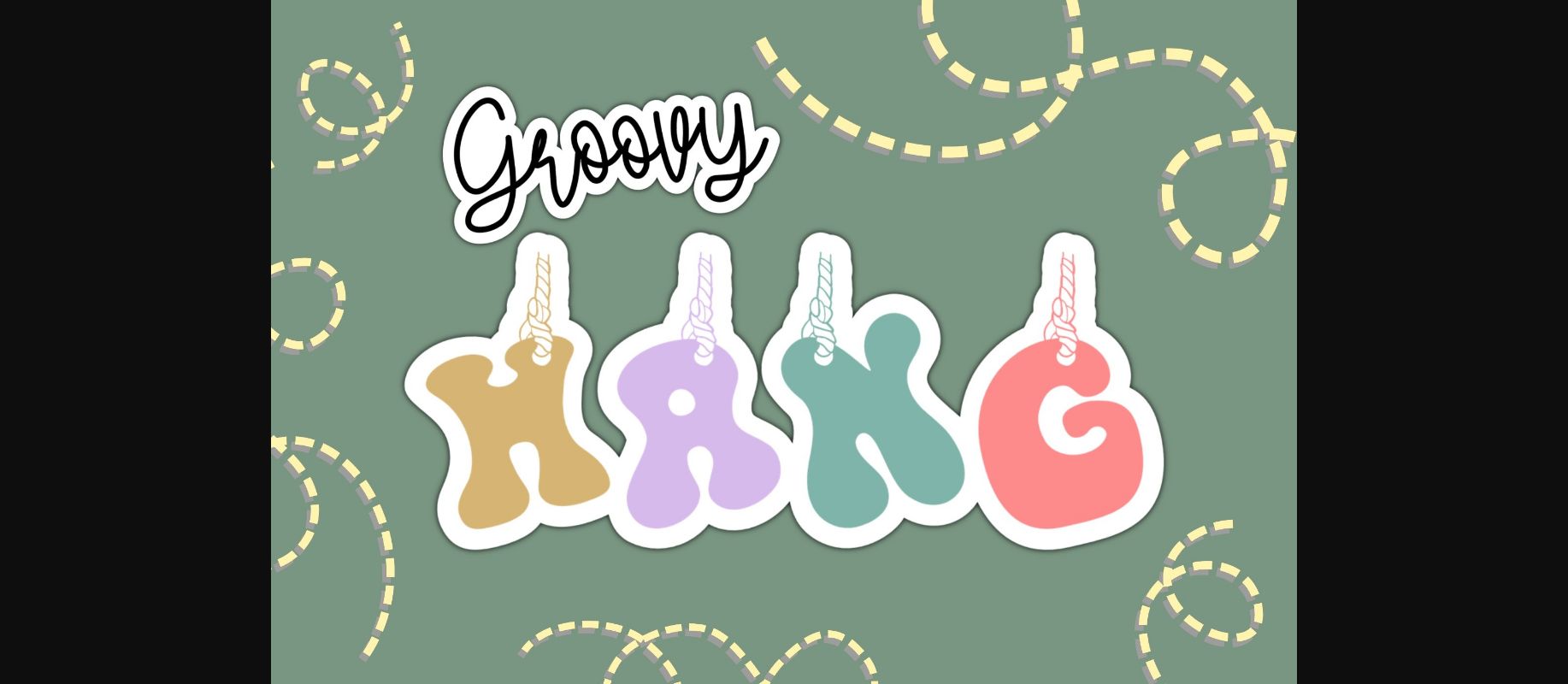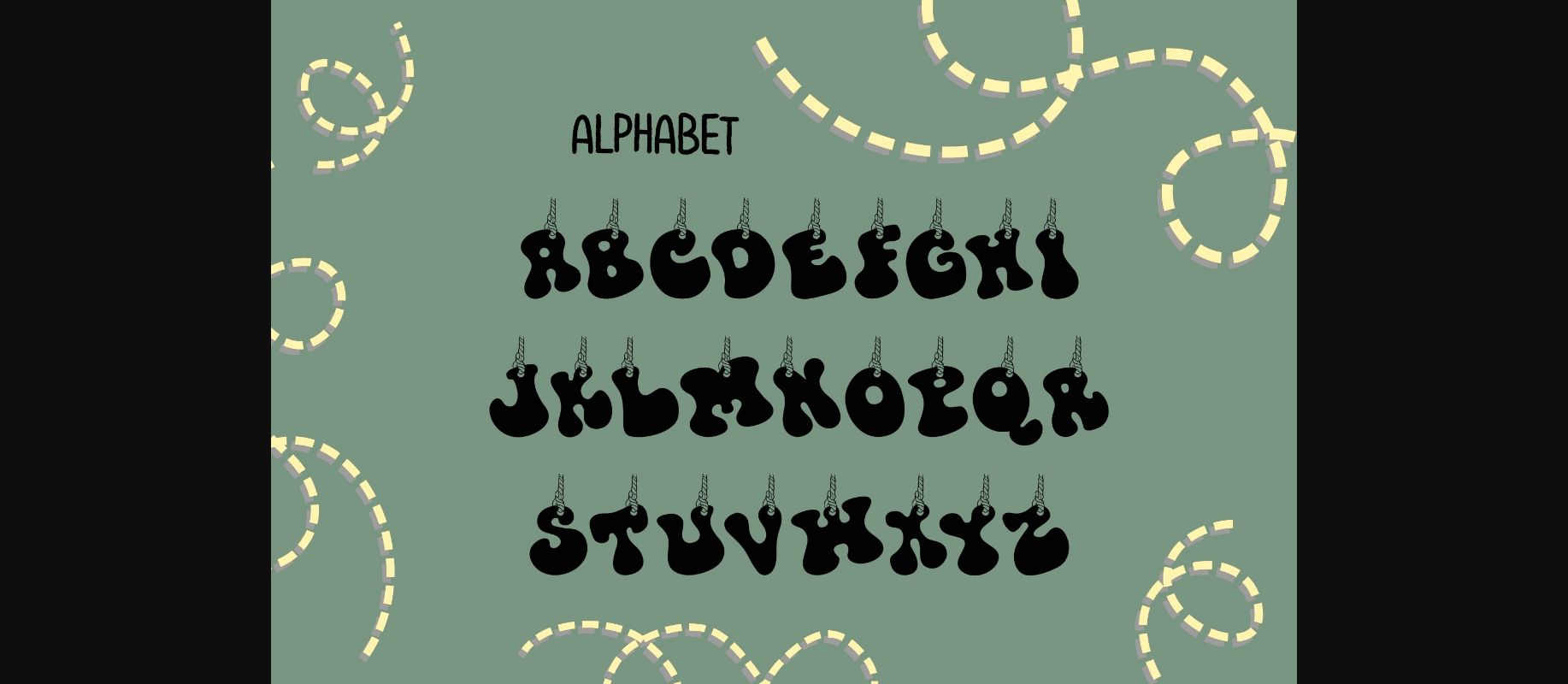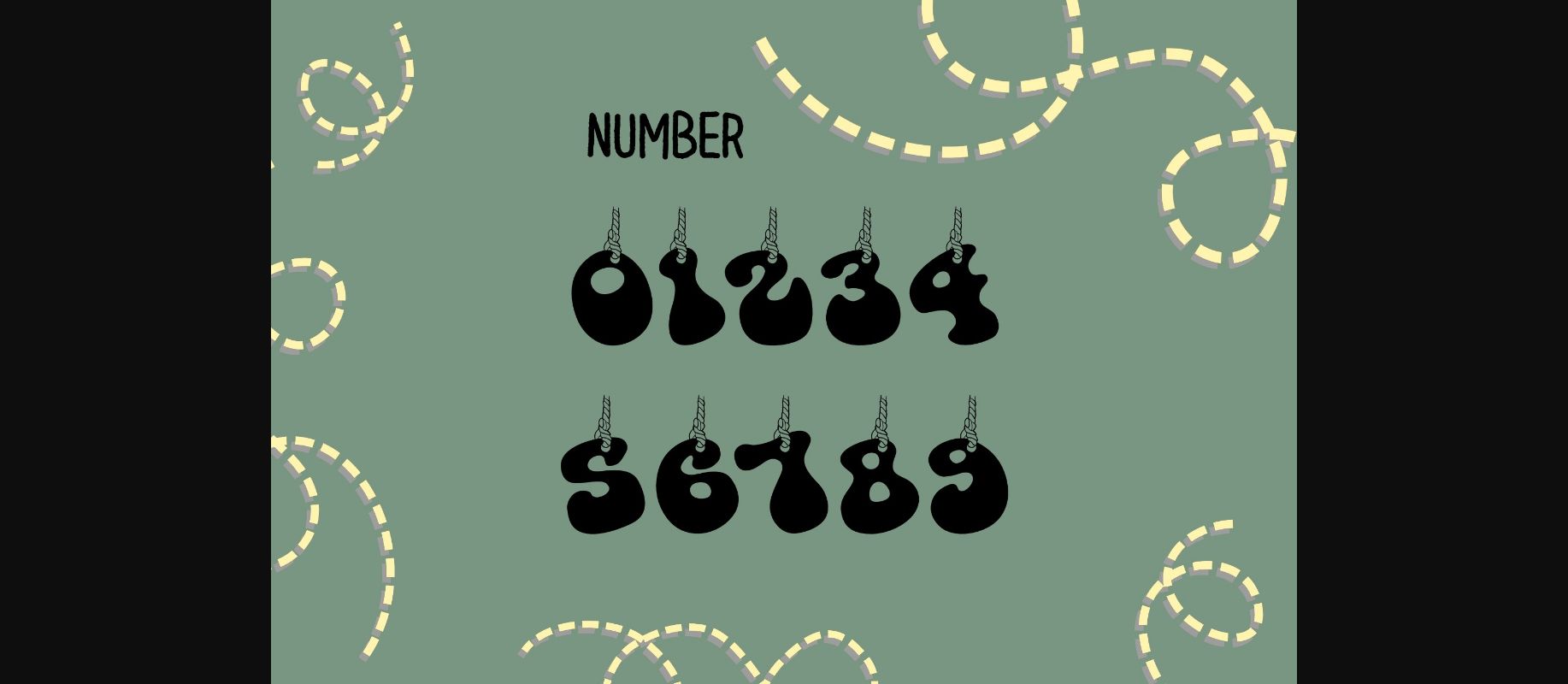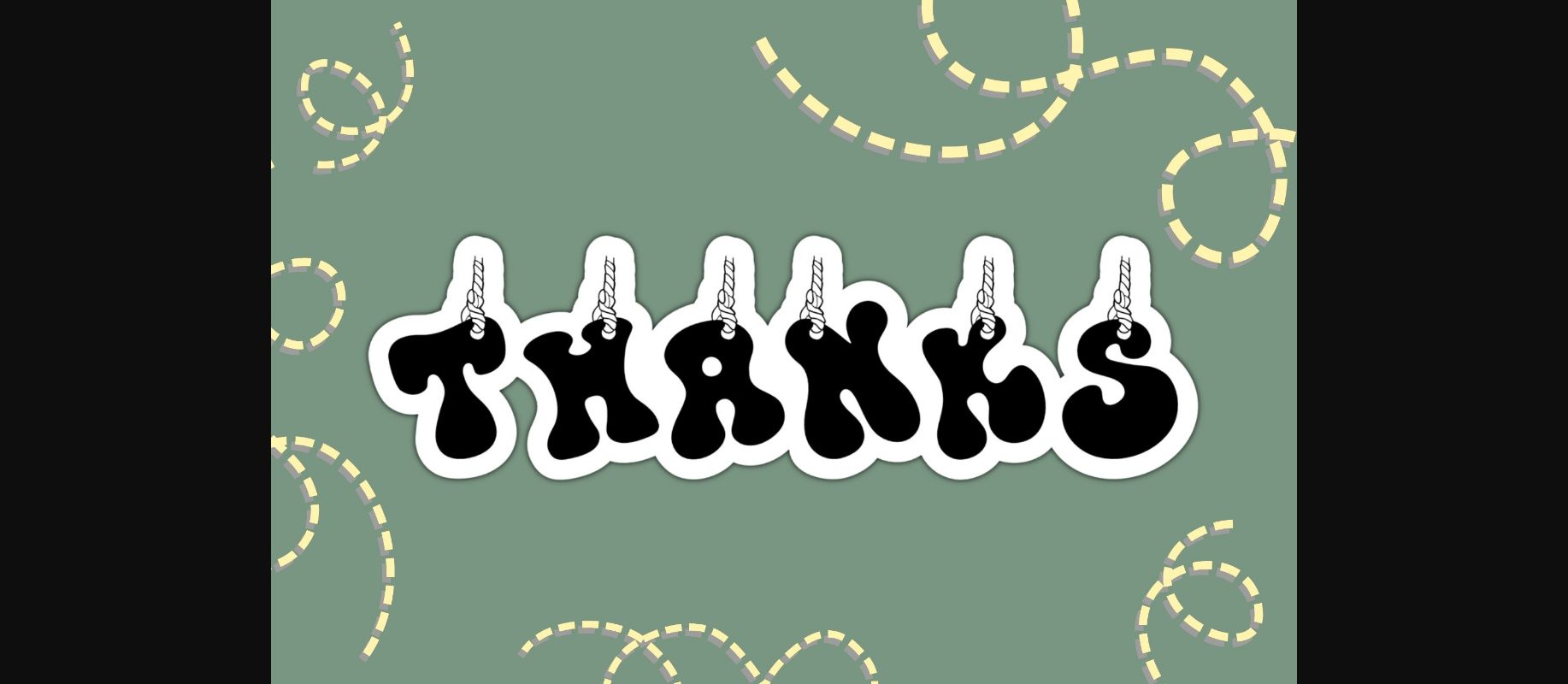
HomeDecorative FontsGroovy Hang Font Decorative Fonts Groovy Hang Font FacebookXPinterestWhatsApp 1 of 6 ... Groovy Hang Font Poster 2... Groovy Hang Font Poster 3... Groovy Hang Font Poster 4... Groovy Hang Font Poster 5... Groovy Hang Font Poster 6... About Groovy Hang Font Groovy Hang is a fun and quirky decorative font. Letters tied with rope hanging in the air look like a label making it the perfect fit for all of your logos, branding, social media, crafty DIY projects, and much more! DOWNLOAD NOW People also explored Dharling Font Little Flower Font Franqueline Slab Font Mitha Font Meow Cat Font Hysteria Witcher Font Best Santa Greetings Font Adellina Font Handmade Compact Font 476 0 TagsGroovy Hang Font Previous articleMaxwell Monogram FontNext articleDaisy Rainbow Font LEAVE A REPLY Cancel reply Comment: Please enter your comment! Name:* Please enter your name here Email:* You have entered an incorrect email address! Please enter your email address here Website: Save my name, email, and website in this browser for the next time I comment. Personal Use Free Lumber Personal Use Free Read more about this font Dealerplate California Personal Use Free Read more about this font Leadent Script Personal Use Free Read more about this font Quickline Personal Use Free Read more about this font BLOG 5 Fonts That Will Dominate Design Trends in 2026 5 Fonts for 2026 That Will Dominate Design Trends Typography plays a critical role in visual communication, and as we look ahead to 2026, it’s... Exploring Font Trends Elegant Wedding Invitation Fonts – Handwritten & Script Fonts Using Fonts in Digital Marketing: Tips to Strengthen Your Brand Identity